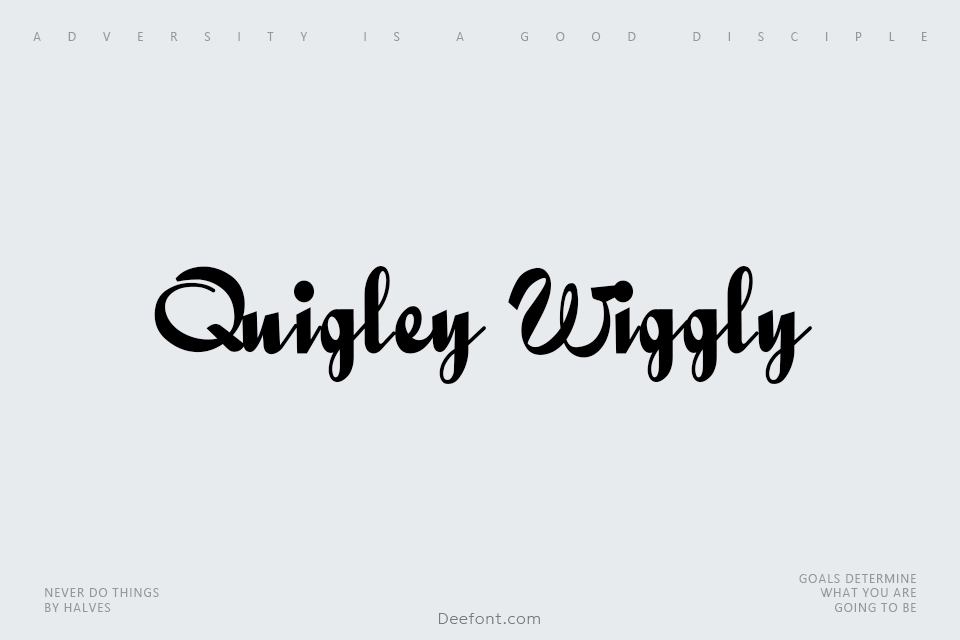
Quigley Wiggly Font
Quigley Wiggly is a playful and distinctive script font designed by Nick’s Fonts that brings whimsical character to your creative projects. Originally inspired by lettering found on a toothpick wrapper, this casual handwriting typeface features charming, slightly quirky letterforms perfect for display purposes. With 399 glyphs and distinctive personality, the font excels at adding personality and retro charm to designs ranging from invitations to posters. Its versatile nature makes it ideal for projects requiring a friendly, informal aesthetic.